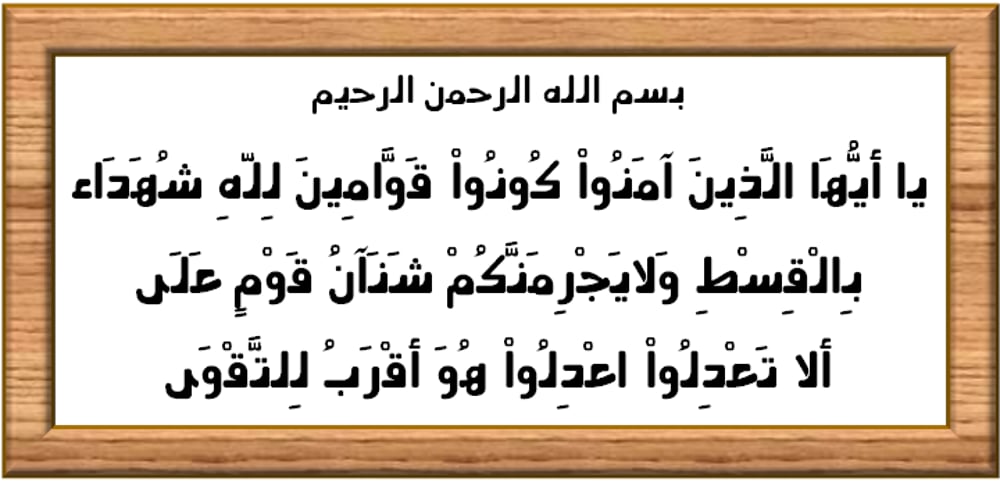
Zena
Zena font
Zena Font Family was designed by Saad D. Abulhab and published by Arabetics. Zena contains 4 styles and family package options. Zena is an Arabetic typeface design with visually connected glyphs, named for designer’s younger daughter, Zena, for her twelfth birthday. Zena follows the guidelines of the Mutamathil Taqlidi type style with one glyph for every basic Arabic Unicode character or letter, as defined in Unicode Standards, and one additional final form glyph for each Arabic letter that can connect with other letters from both sides in traditional cursive Arabic strings. Zena employs variable x-height values. It includes all required Lam-Alif ligatures and selected marks. Tatweel (or Kashida) glyph is a zero width space. Keying it before any glyph will display that glyph isolated form, if desired. Keying Tatweel before Alif Lam Lam Ha will display the Allah ligature. The Zena typeface family includes both Arabic and Arabic-Indic numerals; all required diacritic marks, in addition to Standard English keyboard punctuations and major currency symbols. Zena is available in regular and italic (slated to the left) styles.